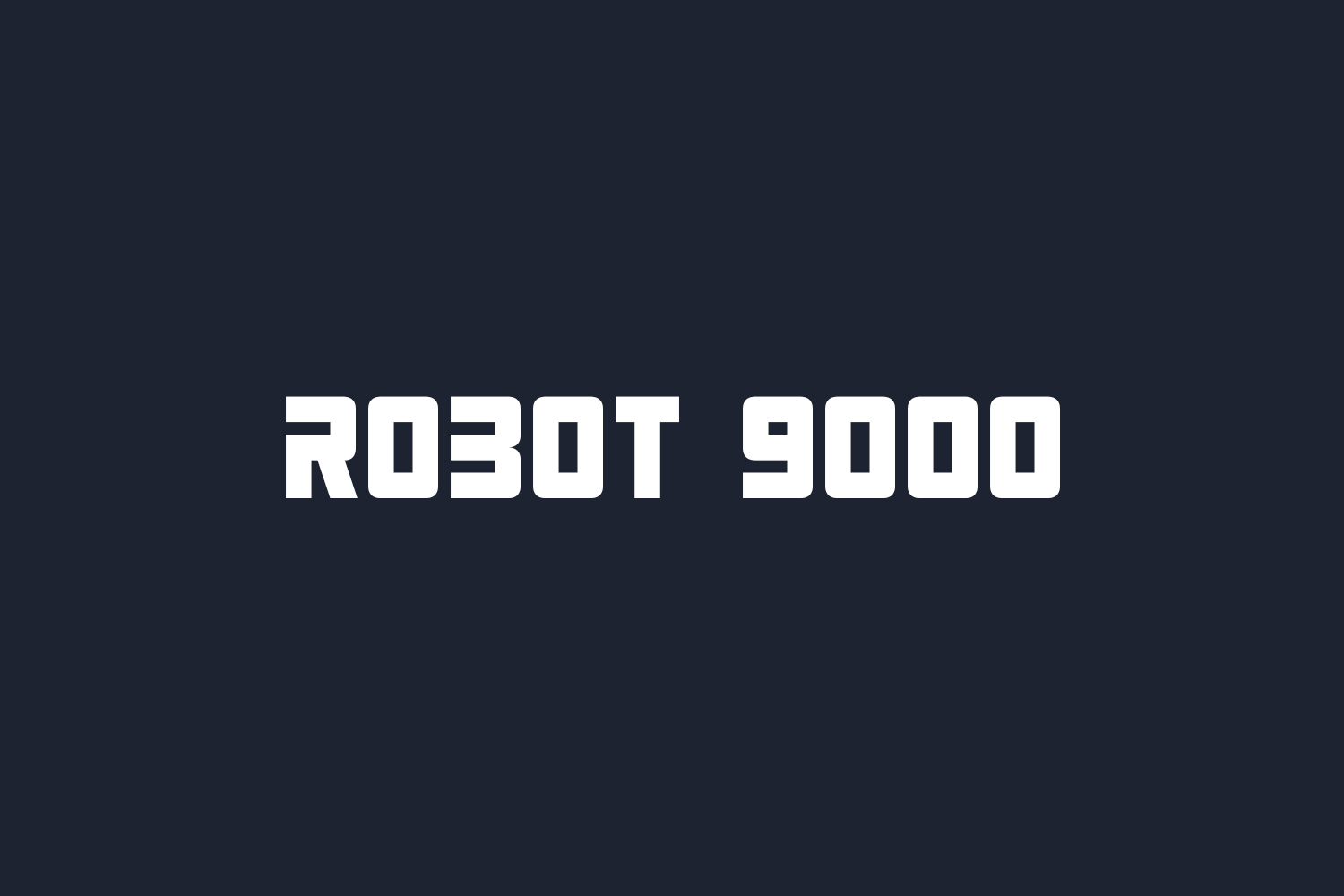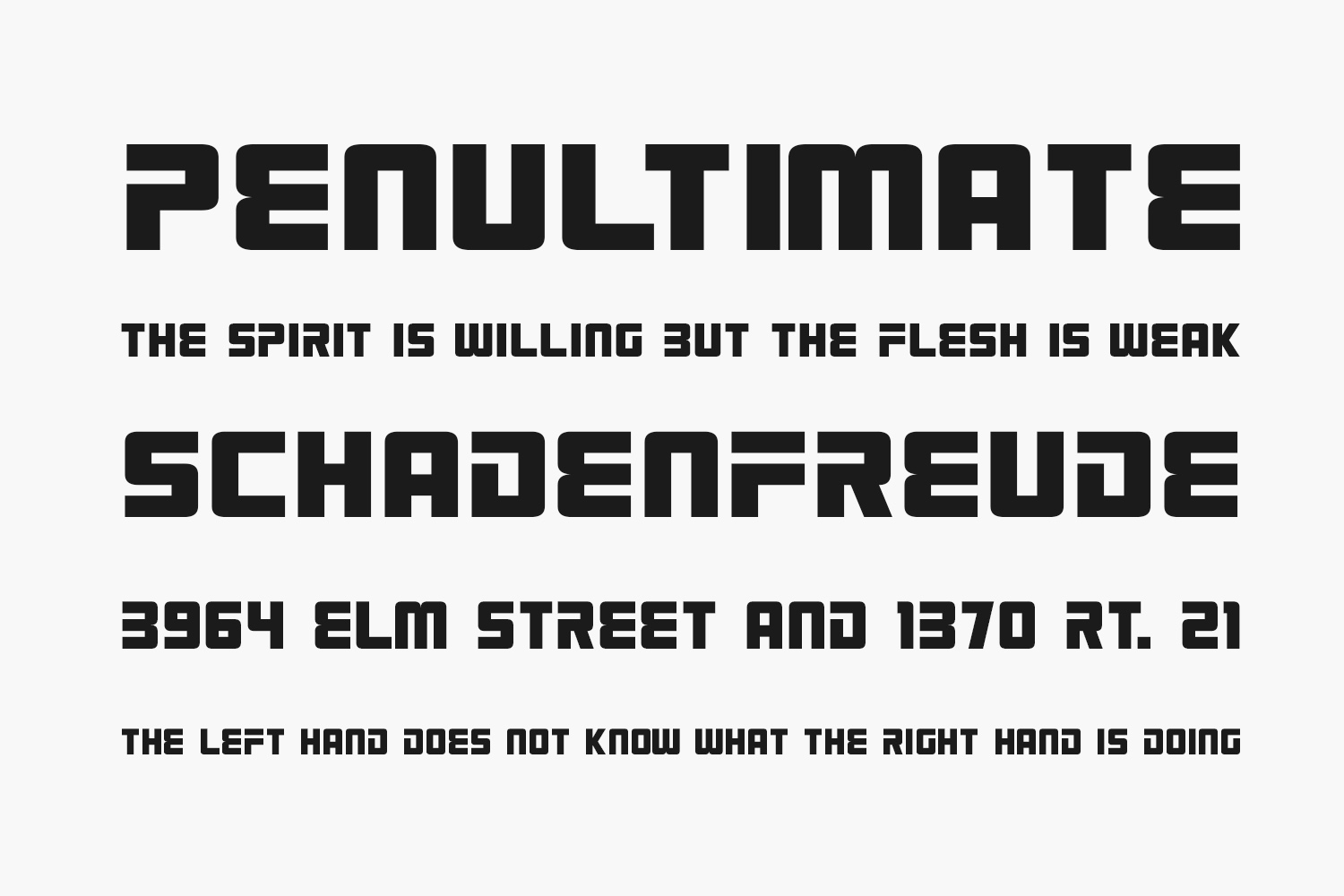
Robot 9000 Free Font Family is a futuristic font in a slick, smooth style. Perfect for alien encounters, tech presentations, and general sci-fi use. Robot 9000 Free Font Family was designed by Darrell Flood and is free for personal use only. Please purchase the full version for commercial use.